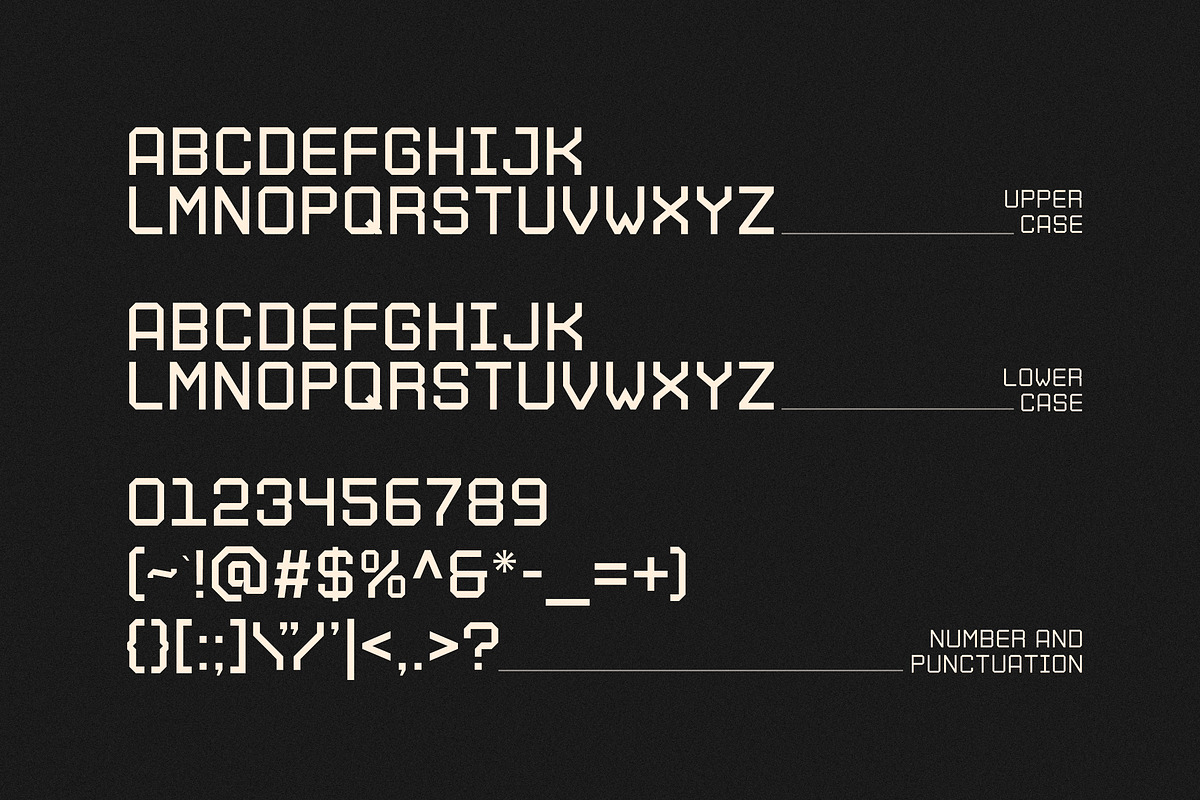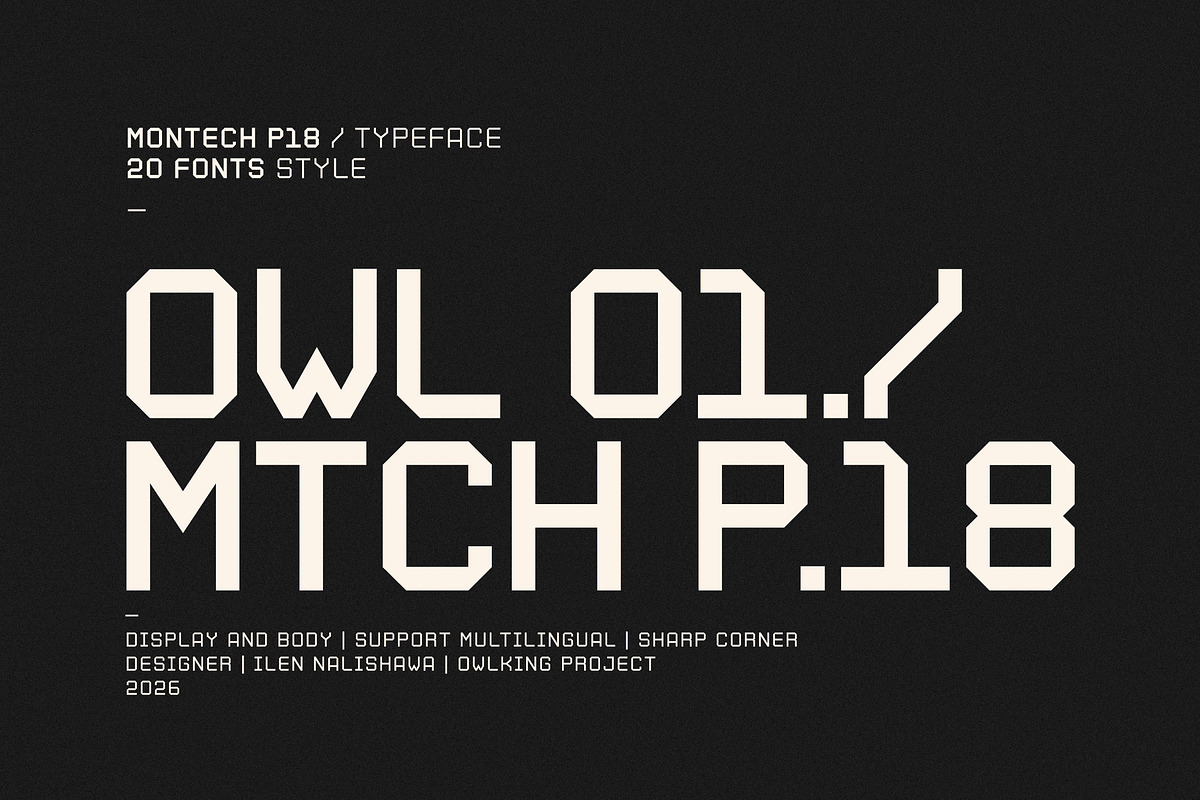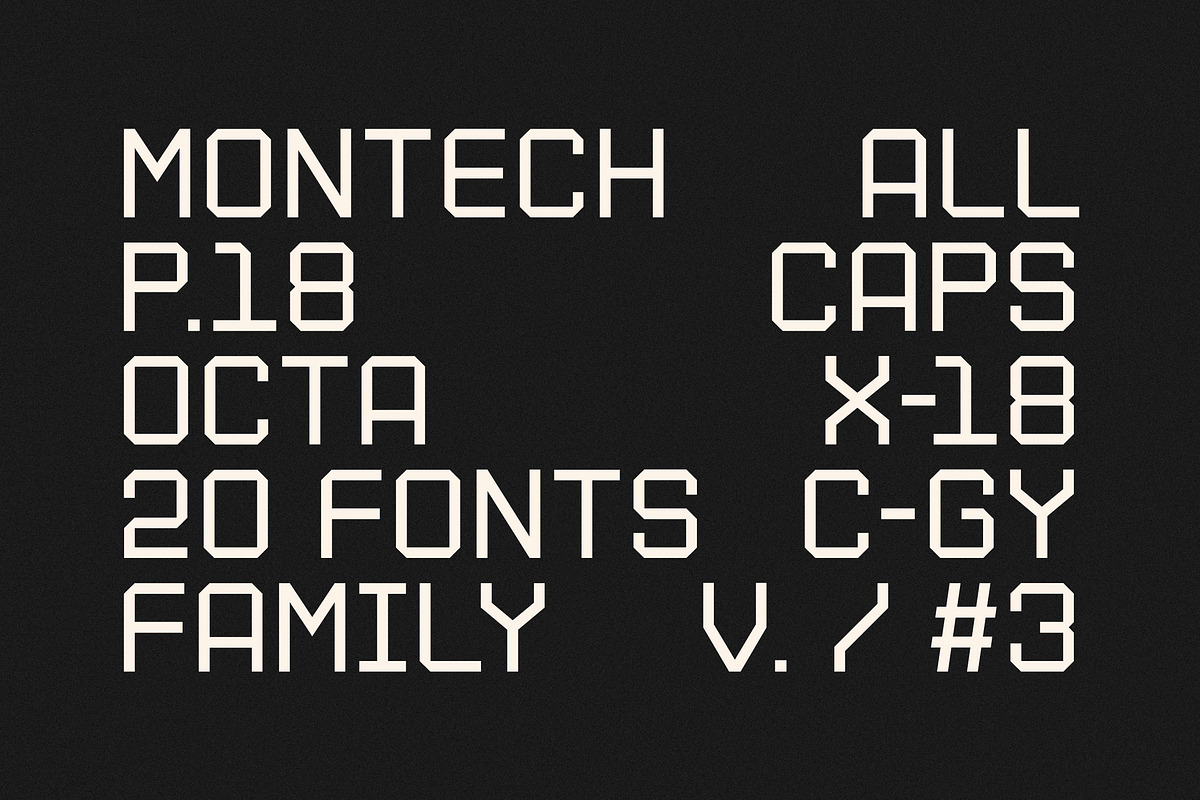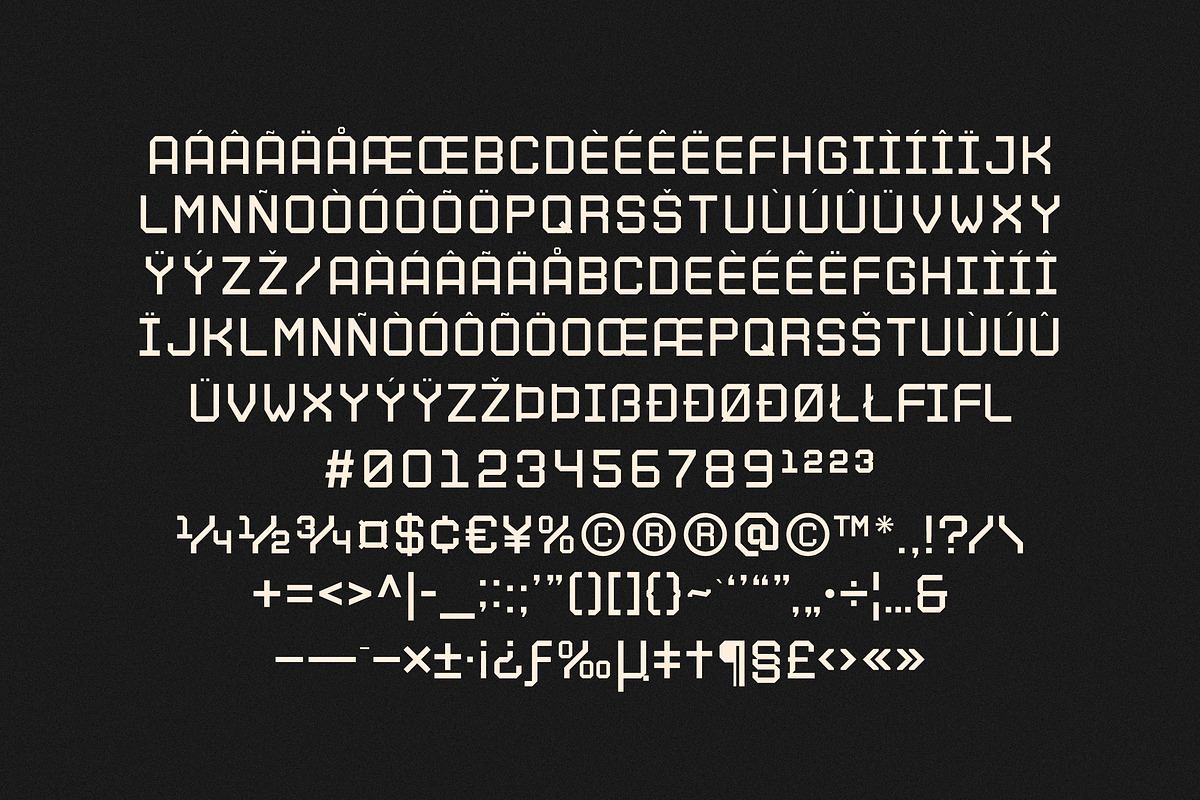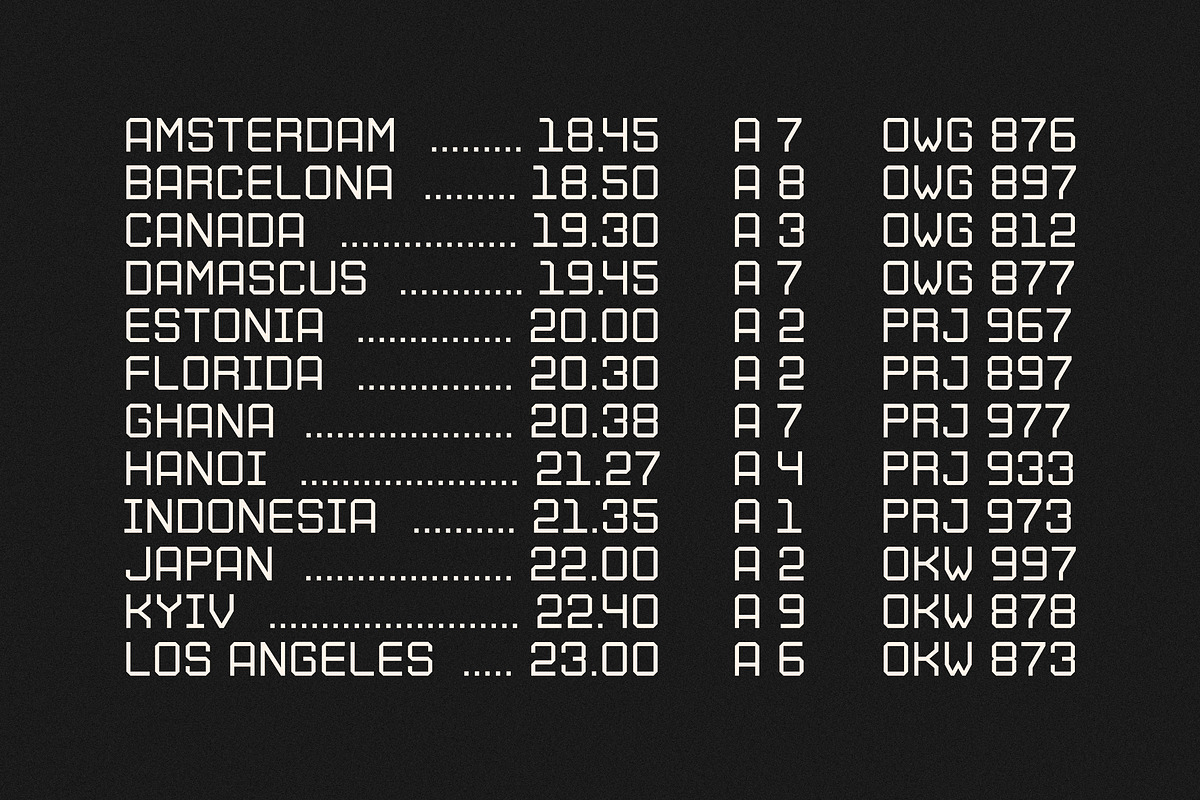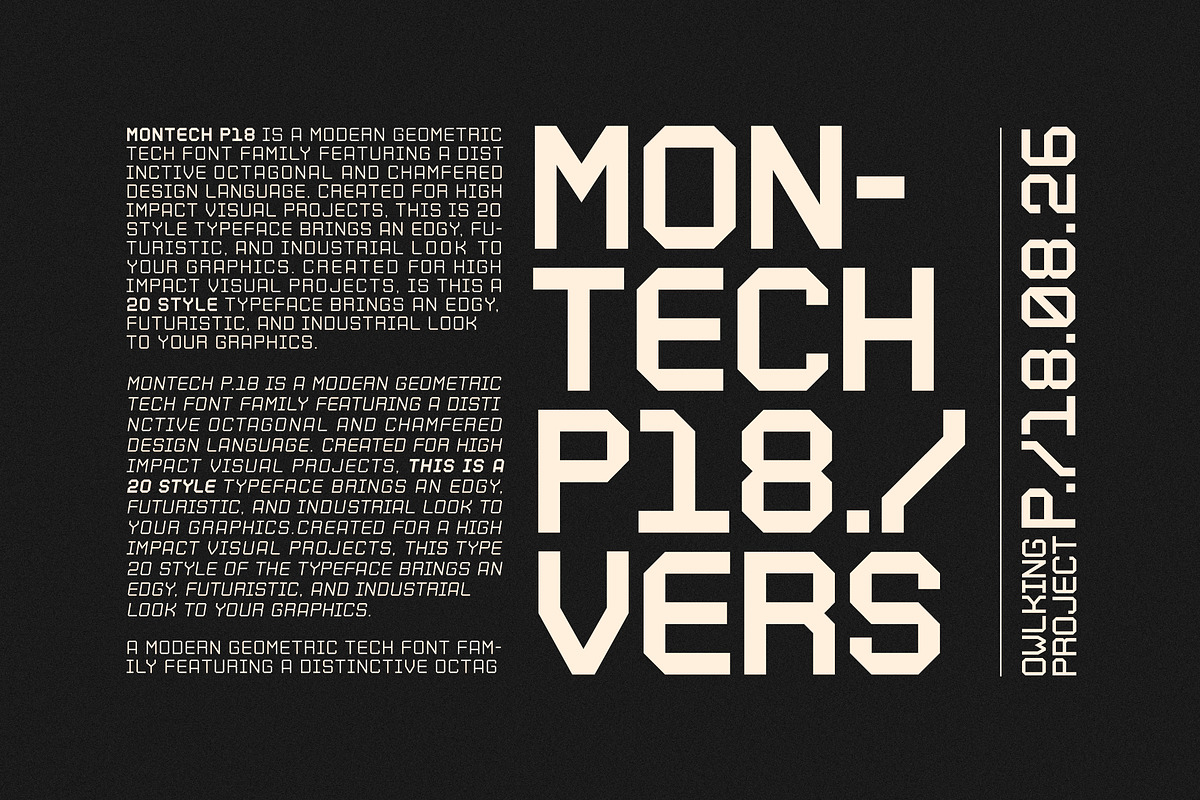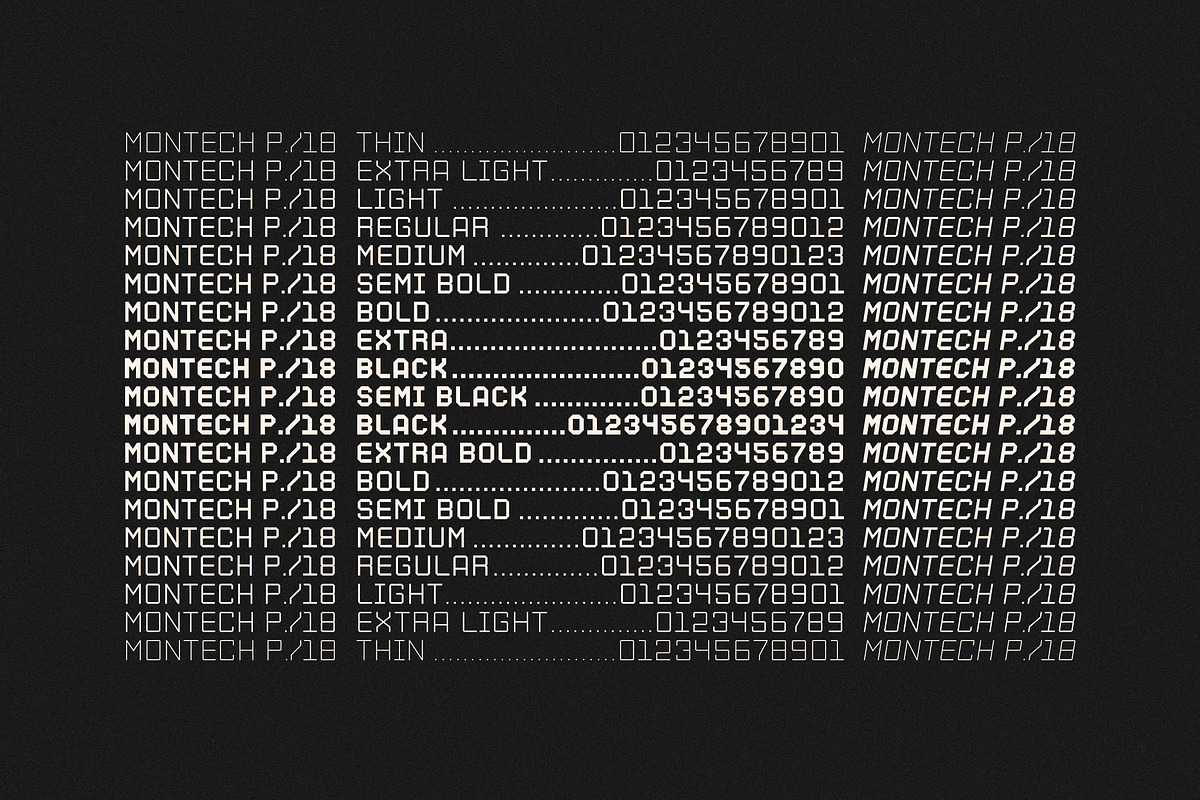
Montech P18
Montech P.18 is a modern geometric tech font family featuring a distinctive octagonal and chamfered design language. Created for high impact visual projects, this **20 style typeface **brings an edgy, futuristic, and industrial look to your graphics.
MAIN FEATURES :
20 Font Styles (Complete Family)
Uppercase, Small caps, Numbers, and Symbols
Multilingual Accent Support
Clean Geometric & Modular Structure